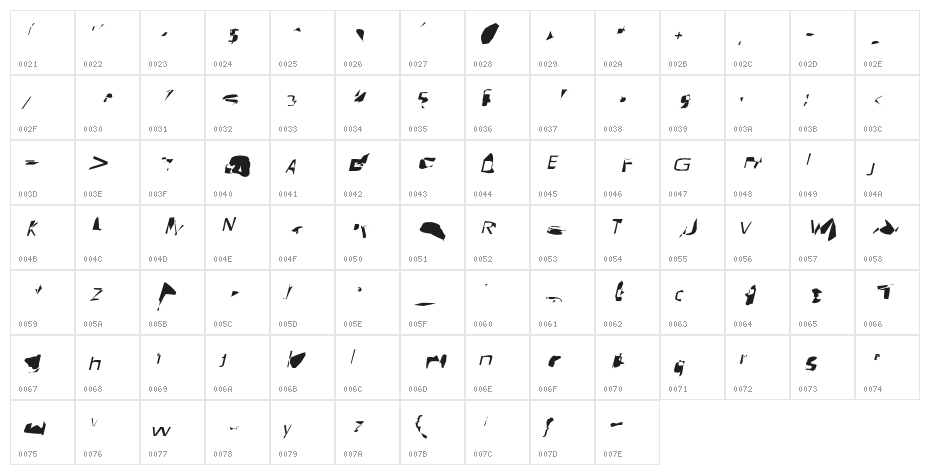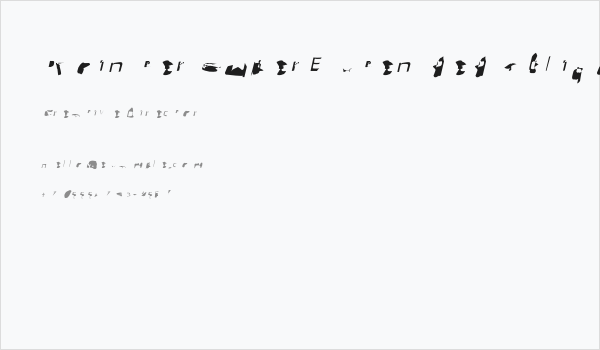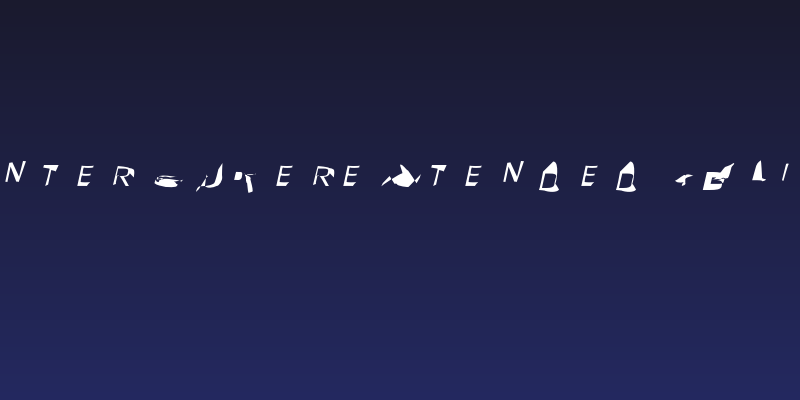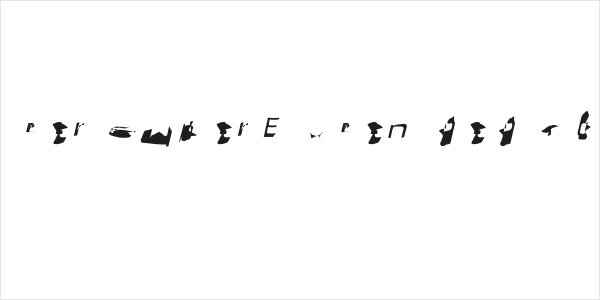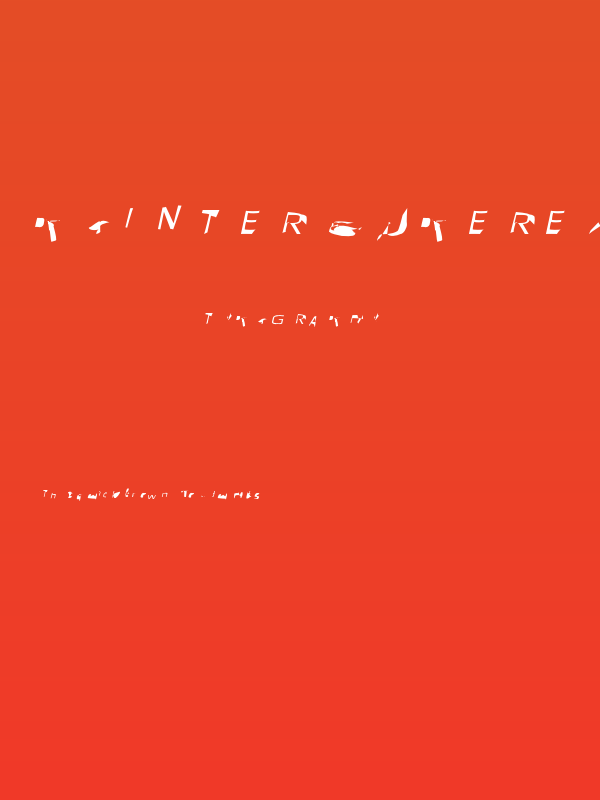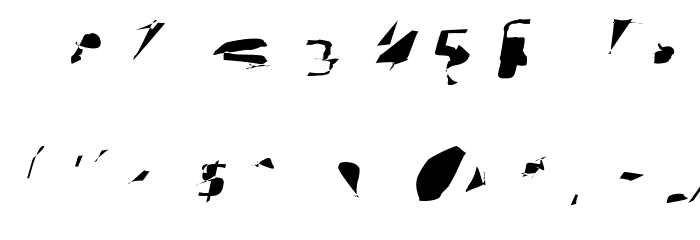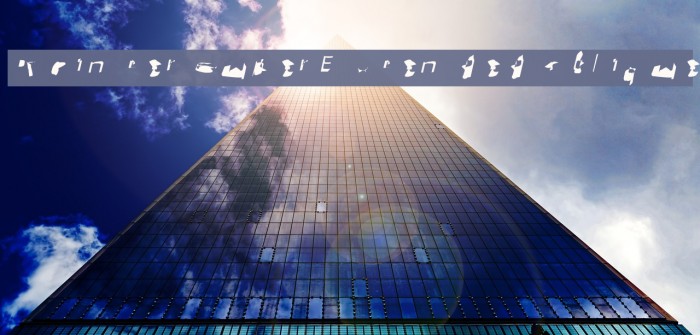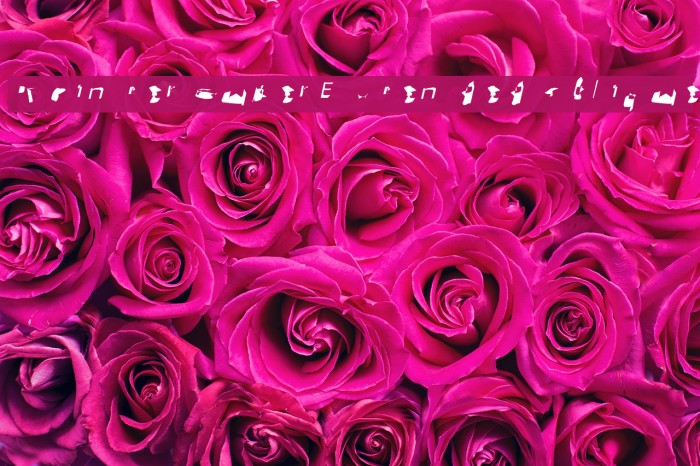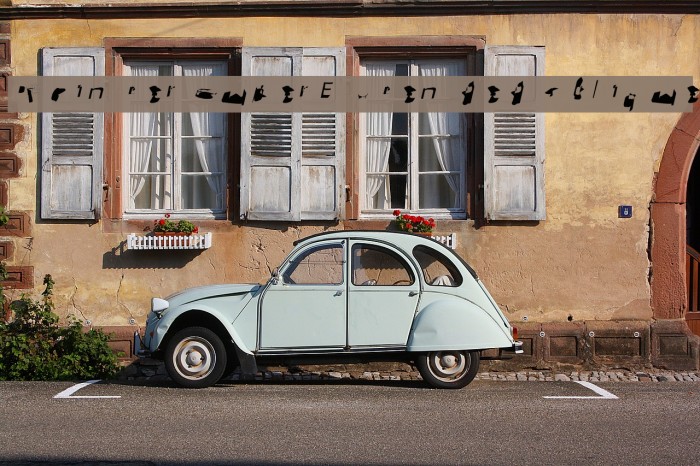
Pointer SuperExtended Oblique Font
Pointer SuperExtended Oblique Description
This font exhibits a highly abstract and distorted style, characterized by its fragmented and jagged appearance. The characters are heavily stylized, with sharp angles and irregular shapes that create a sense of chaos and movement. The strokes are uneven, with varying thicknesses that contribute to its dynamic and edgy look. This font defies traditional readability, opting instead for a bold artistic statement. Its unique form makes it stand out, but it may not be suitable for text-heavy applications due to its unconventional design.
| Use Case | Logos, Artistic displays, Experimental design |
| Proposed Projects | Ideal for avant-garde art projects, experimental designs, or as a striking element in modern digital artwork. |